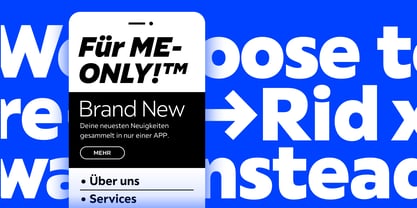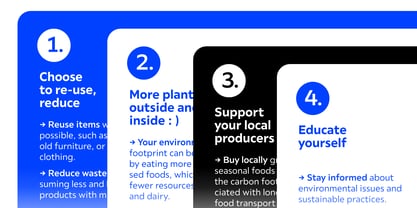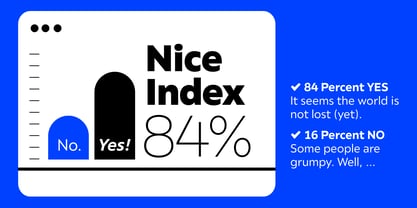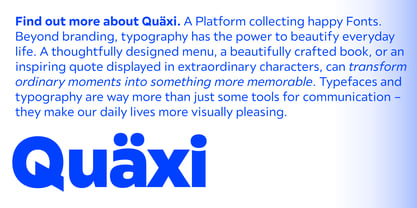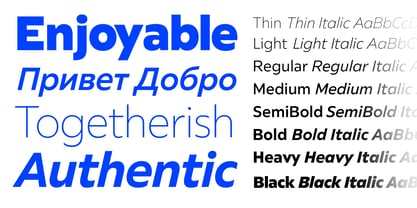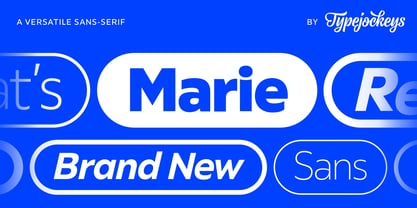
Marie Sans
by Typejockeys
The Marie Sans Font Family was designed by Michael Hochleitner and published by Typejockeys. Marie Sans contains 18 styles and family package options. More about this family
Typejockeys’ sans serif Marie is as versatile as she is subtle. A type family that deliberately steps back to give design the space it needs. Whether in editorial design, branding, digital interfaces, or classic print applications – Marie integrates seamlessly into any context.
The idea behind it is simple: no gimmicks, no distractions, no unnecessary fuss. Instead, Marie provides exactly what designers need to create clear, timeless typography. With its balanced proportions, functional clarity, and approachable ease, it strikes a delicate balance between neutrality and character.
That makes Marie the perfect companion for anyone who wants their content to shine.
The family, with 16 styles from Thin to Black, comes with a Cyrillic character set and is available as a Variable Font.